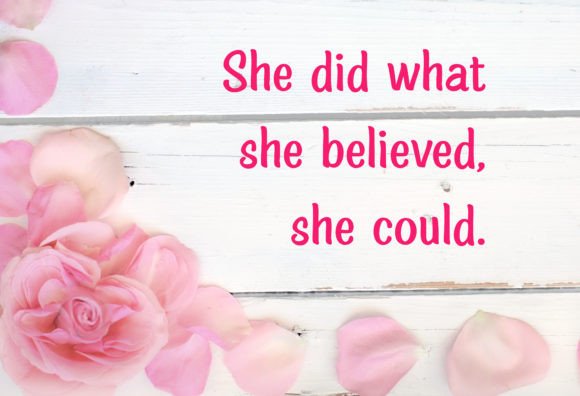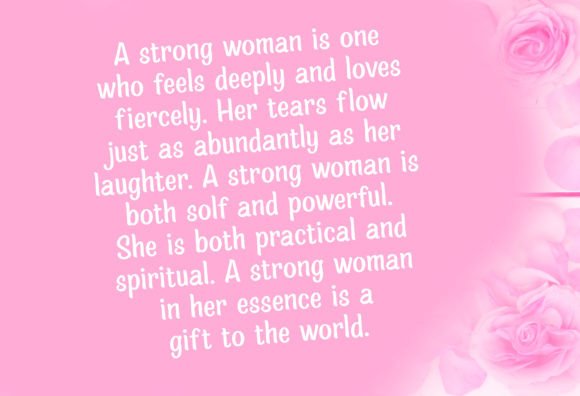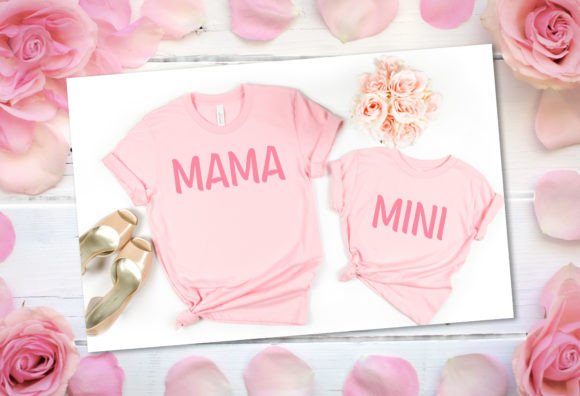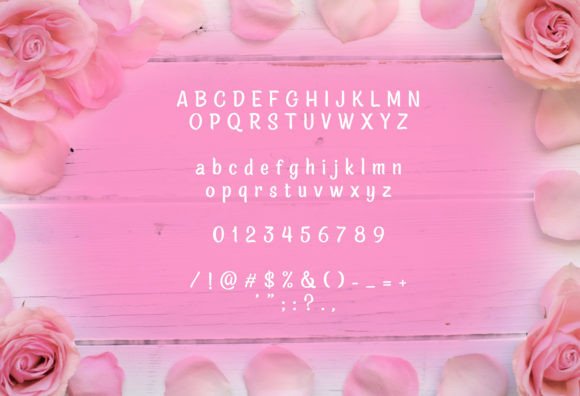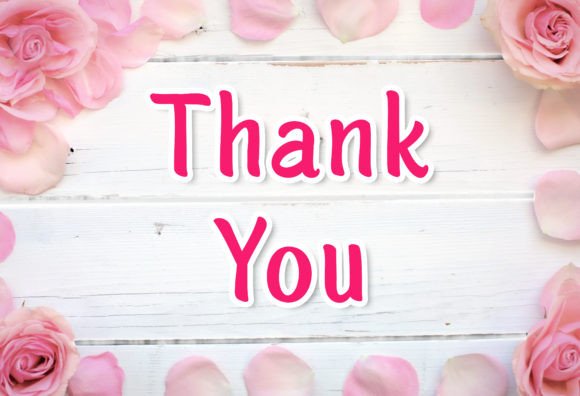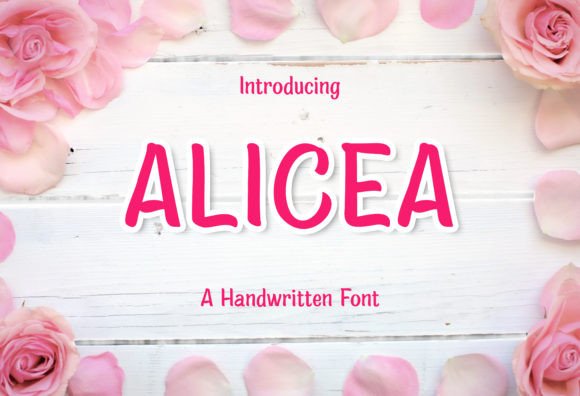
Alicea Font: The Perfect Handwritten Font for Your Decorative Design Projects
Are you a designer or crafter looking for a beautiful handwritten font to elevate your decorative design projects? Look no further than Alicea Font! This stunning font is perfect for creating eye-catching greeting cards, invitations, motivational quotes, and more. With its unique and elegant style, Alicea Font is sure to help you express your best messages and make your designs stand out.
What Makes Alicea Font So Special?
Alicea Font is a carefully crafted handwritten font that boasts a range of characteristics that make it perfect for decorative design projects. Here are just a few of the features that set it apart:
- Beautiful Handwritten Style: Alicea Font features a gorgeous handwritten style that is both elegant and approachable. Its flowing lines and delicate curves make it perfect for creating designs that feel personal and heartfelt.
- Highly Versatile: Whether you’re creating greeting cards, invitations, motivational quotes, or social media graphics, Alicea Font is the perfect choice. Its versatility means you can use it for a wide range of design projects, from formal to informal.
- Easy to Read: Despite its decorative nature, Alicea Font is surprisingly easy to read, making it perfect for designs that require a clear and concise message.
- Unique Character Set: Alicea Font comes with a unique character set that includes a range of letters, numbers, and punctuation marks. This means you can create designs that are truly one-of-a-kind.
How to Use Alicea Font in Your Design Projects
Using Alicea Font in your design projects is easy! Here are a few tips to get you started:
- Pair it with Other Fonts: Alicea Font pairs perfectly with other fonts, such as sans-serif fonts like Arial or Helvetica. Experiment with different font combinations to create unique and eye-catching designs.
- Experiment with Colors: Alicea Font looks stunning in a range of colors, from bright and bold to soft and pastel. Don’t be afraid to experiment with different colors to find the perfect look for your design.
- Add Decorative Elements: To really make your designs pop, consider adding decorative elements like illustrations, graphics, or textures. Alicea Font provides the perfect base for these types of designs.
Ideas for Using Alicea Font
So, what can you create with Alicea Font? The possibilities are endless! Here are a few ideas to get you started:
- Greeting Cards: Create beautiful greeting cards for special occasions like birthdays, weddings, and holidays.
- Invitations: Use Alicea Font to create stunning invitations for parties, events, and other gatherings.
- Motivational Quotes: Create inspiring motivational quotes using Alicea Font and share them on social media or use them in your designs.
- Social Media Graphics: Use Alicea Font to create eye-catching social media graphics that will help you stand out from the crowd.
In conclusion, Alicea Font is a beautiful handwritten font that is perfect for decorative design projects. Its unique and elegant style makes it perfect for creating eye-catching greeting cards, invitations, motivational quotes, and more. With its highly versatile nature and easy-to-read design, Alicea Font is sure to become a go-to font in your design arsenal. So why wait? Download Alicea Font today and start creating stunning designs that will leave a lasting impression!